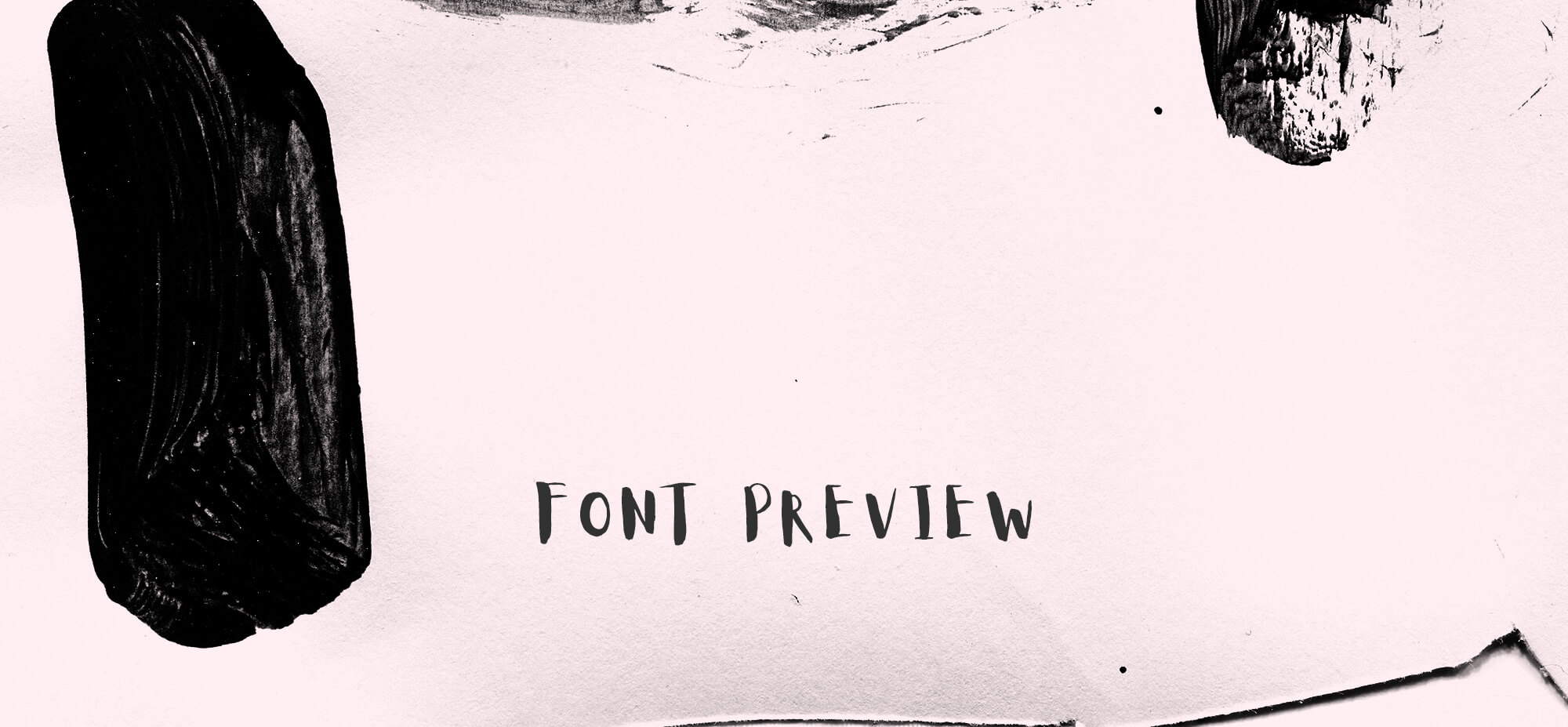
Aloja Free Handwriting Font
by Ieva Mezule
Aloja handwriting font was drawn by Ieva Mezule and put together by Krisjanis Mezulis. Aloja font can be used for - Big titles, events, posters, invitations and website, since there is also a .woff version. The playful letter bounces make it stand out from the crowd.